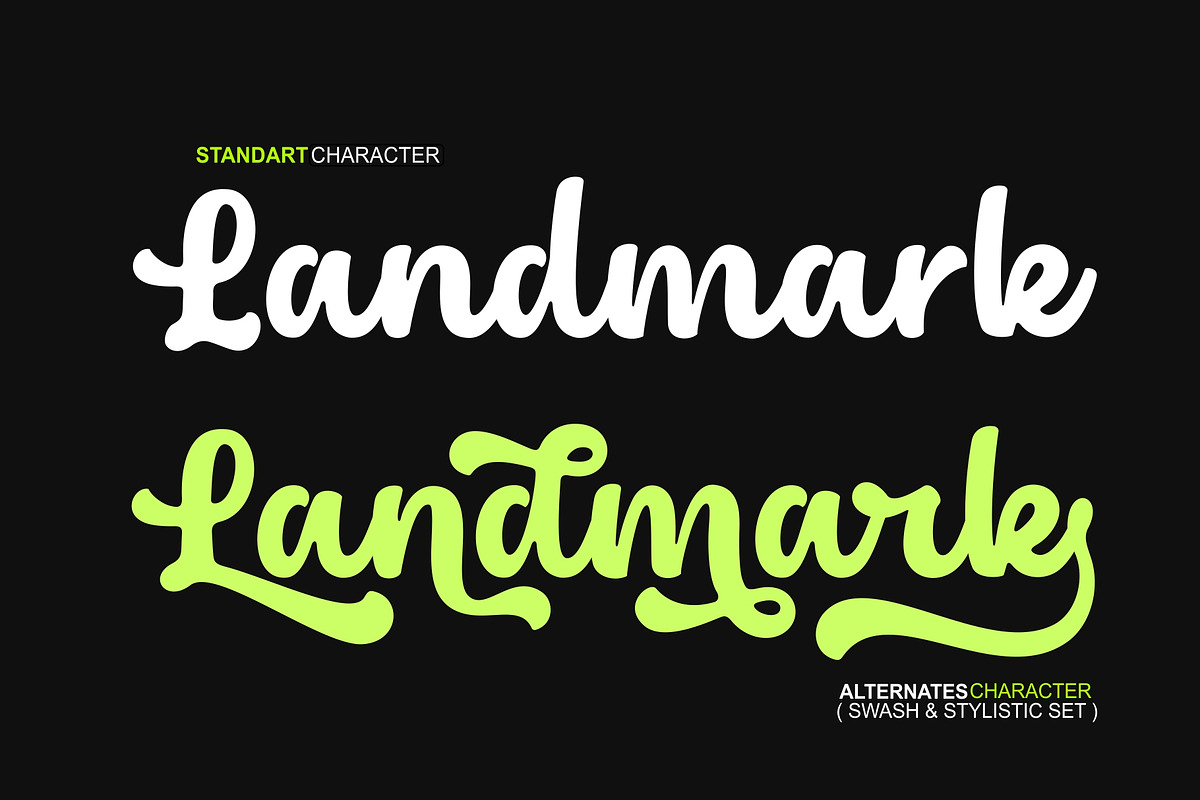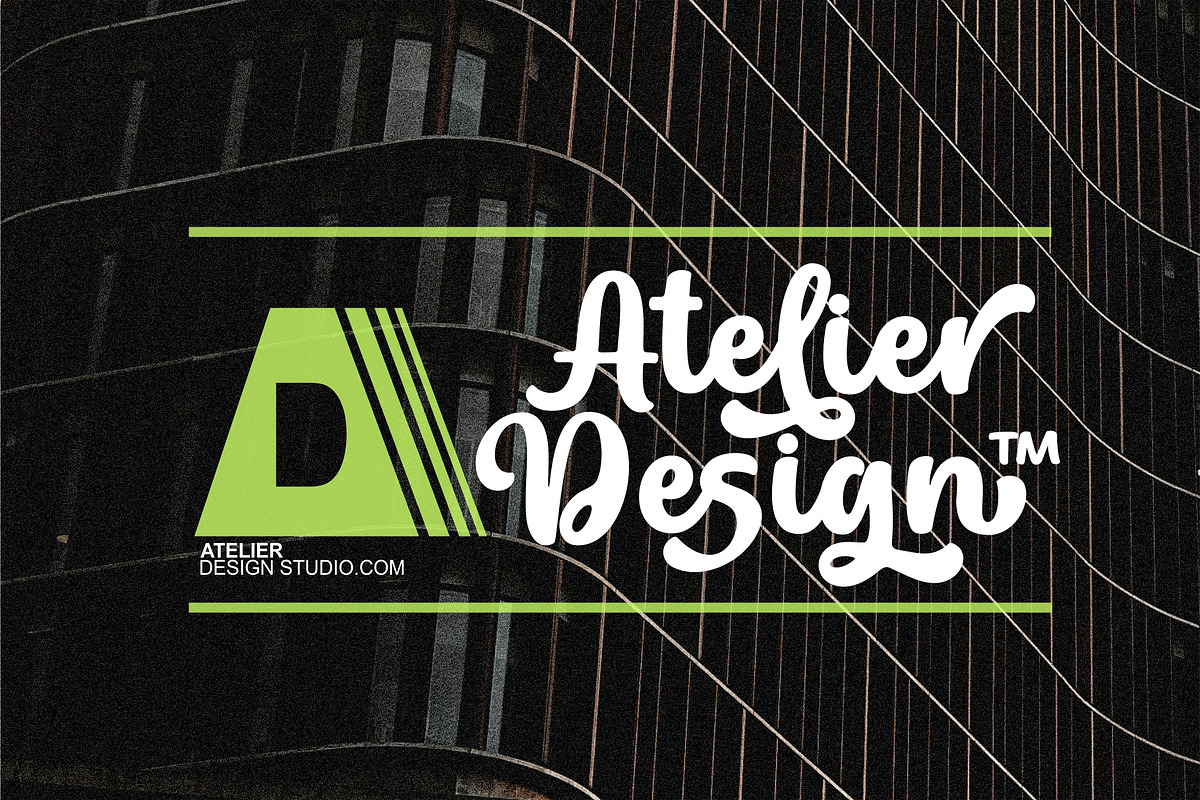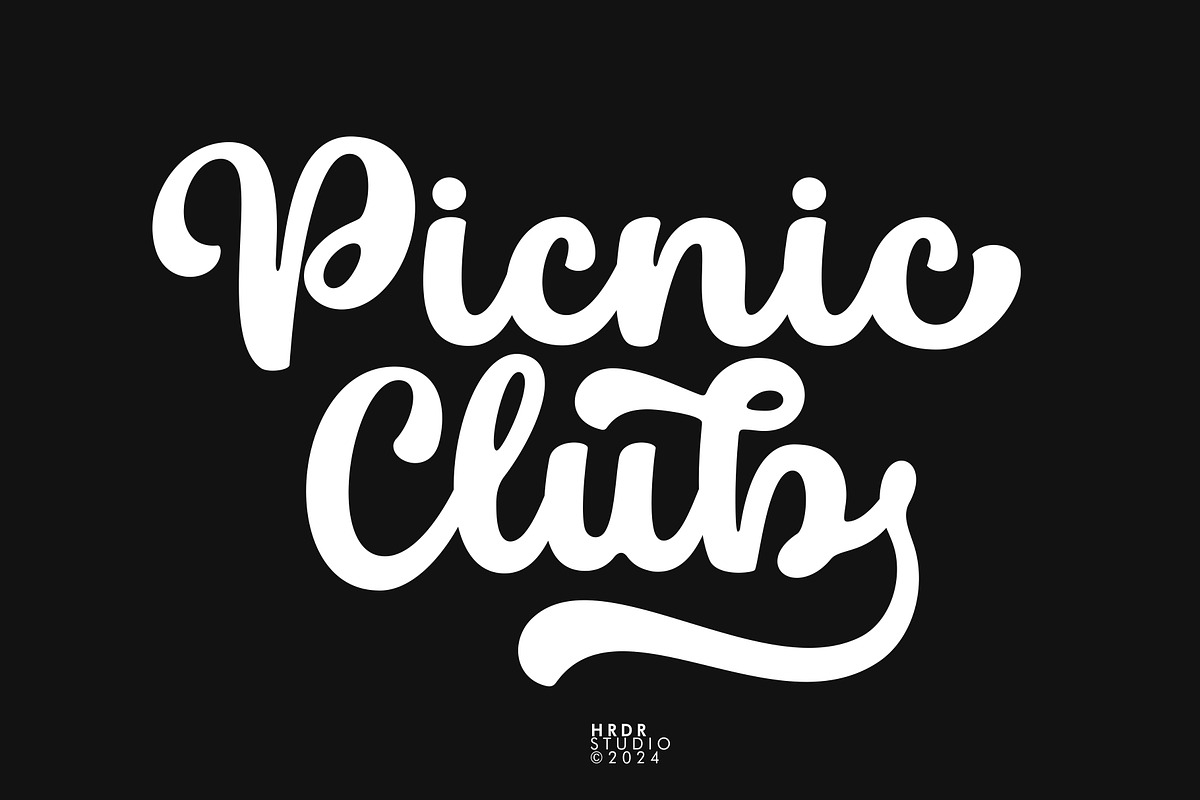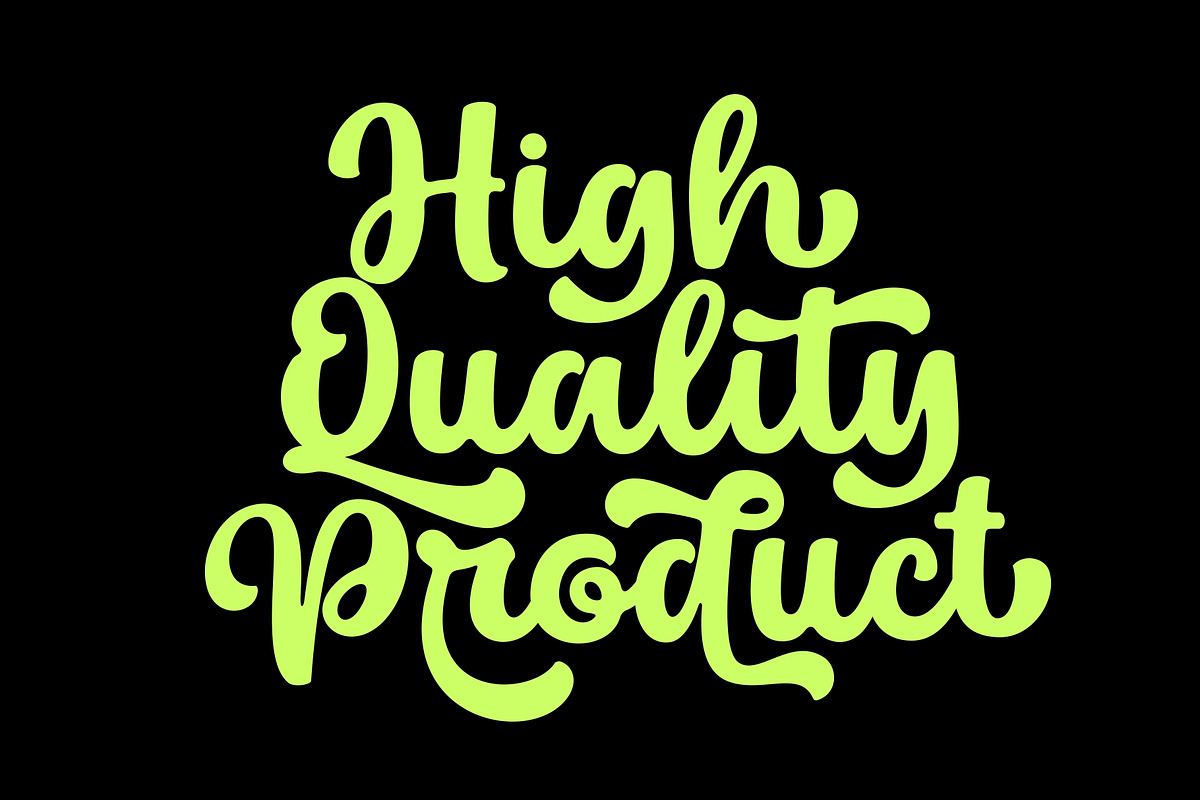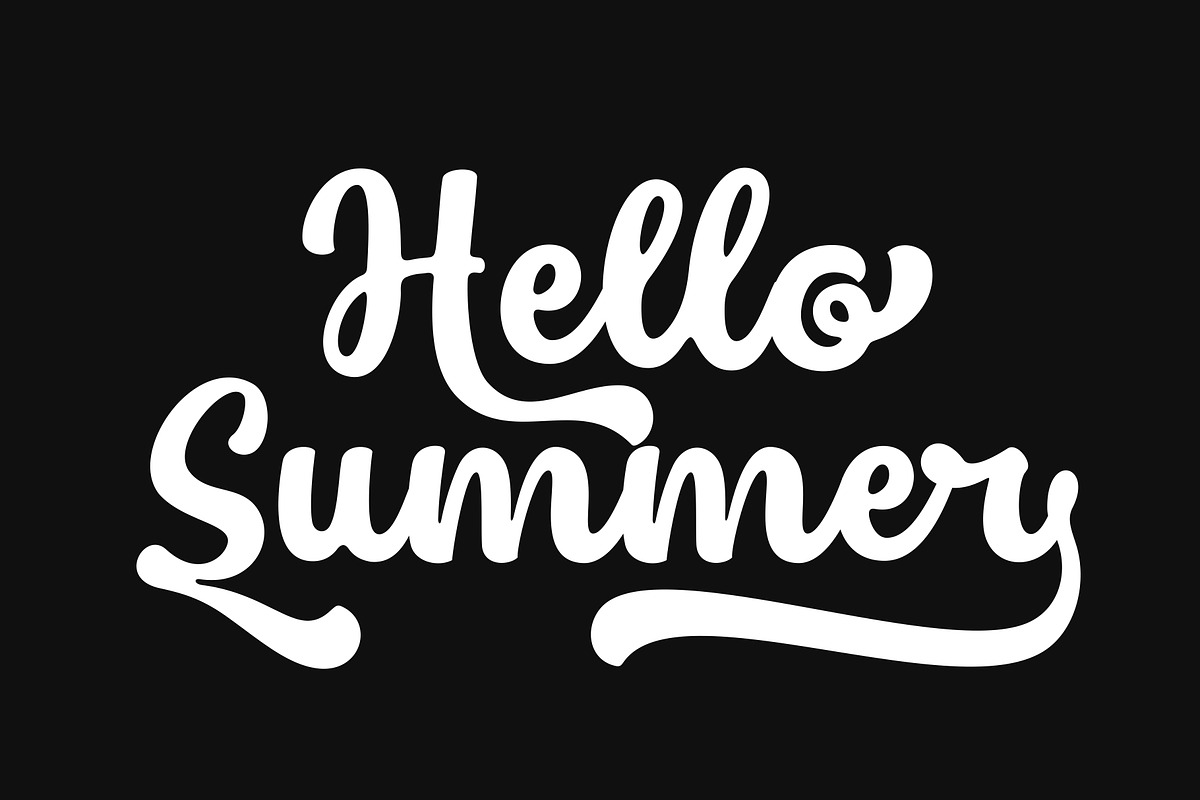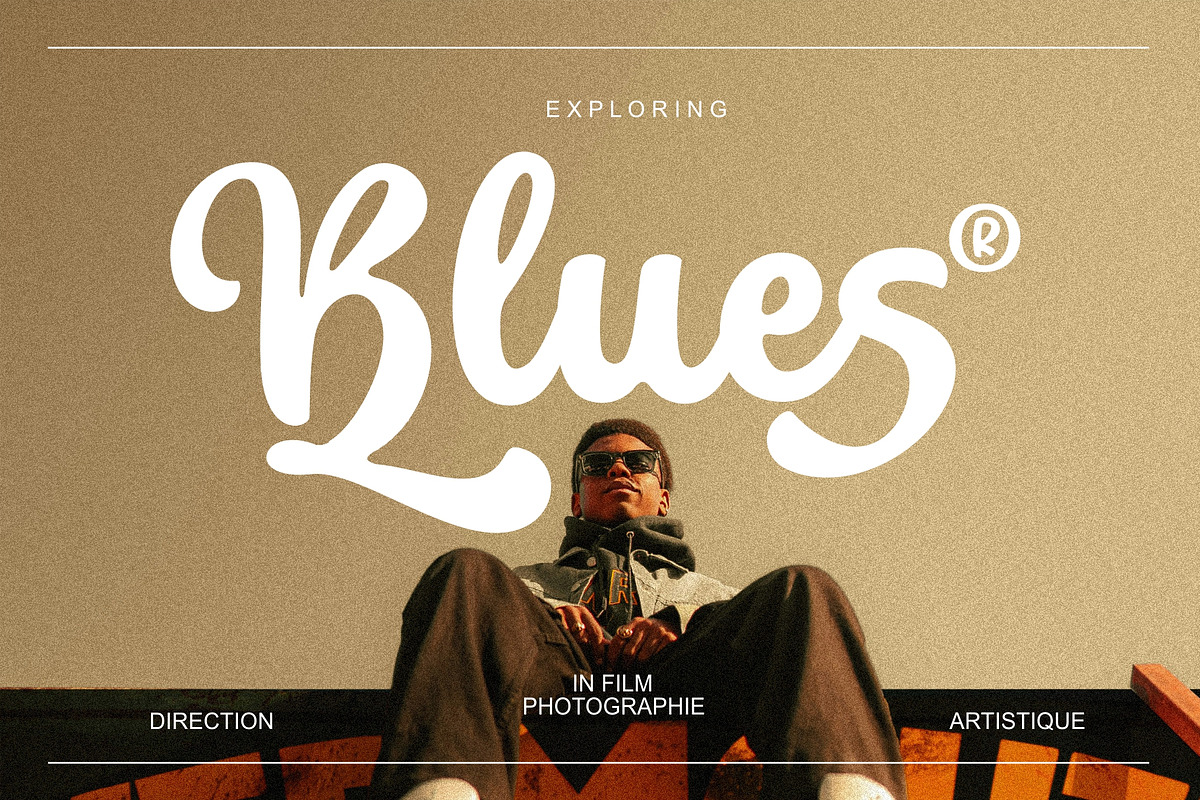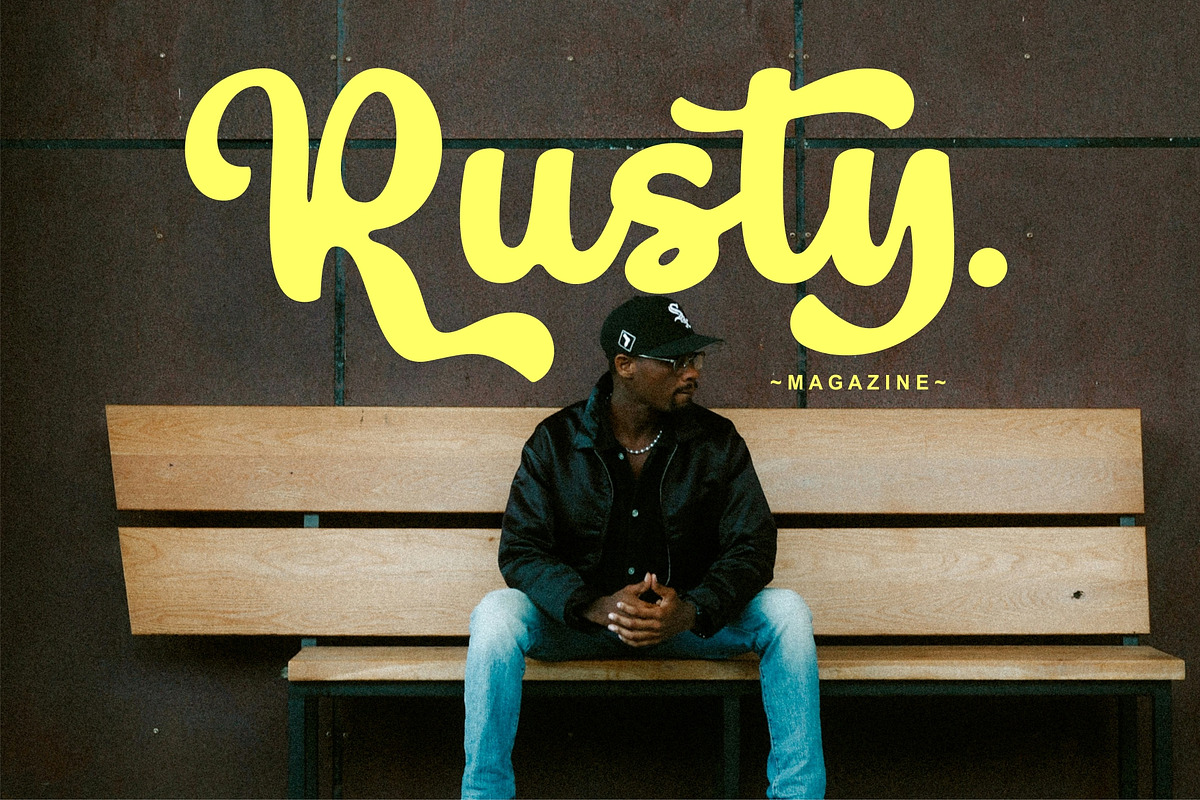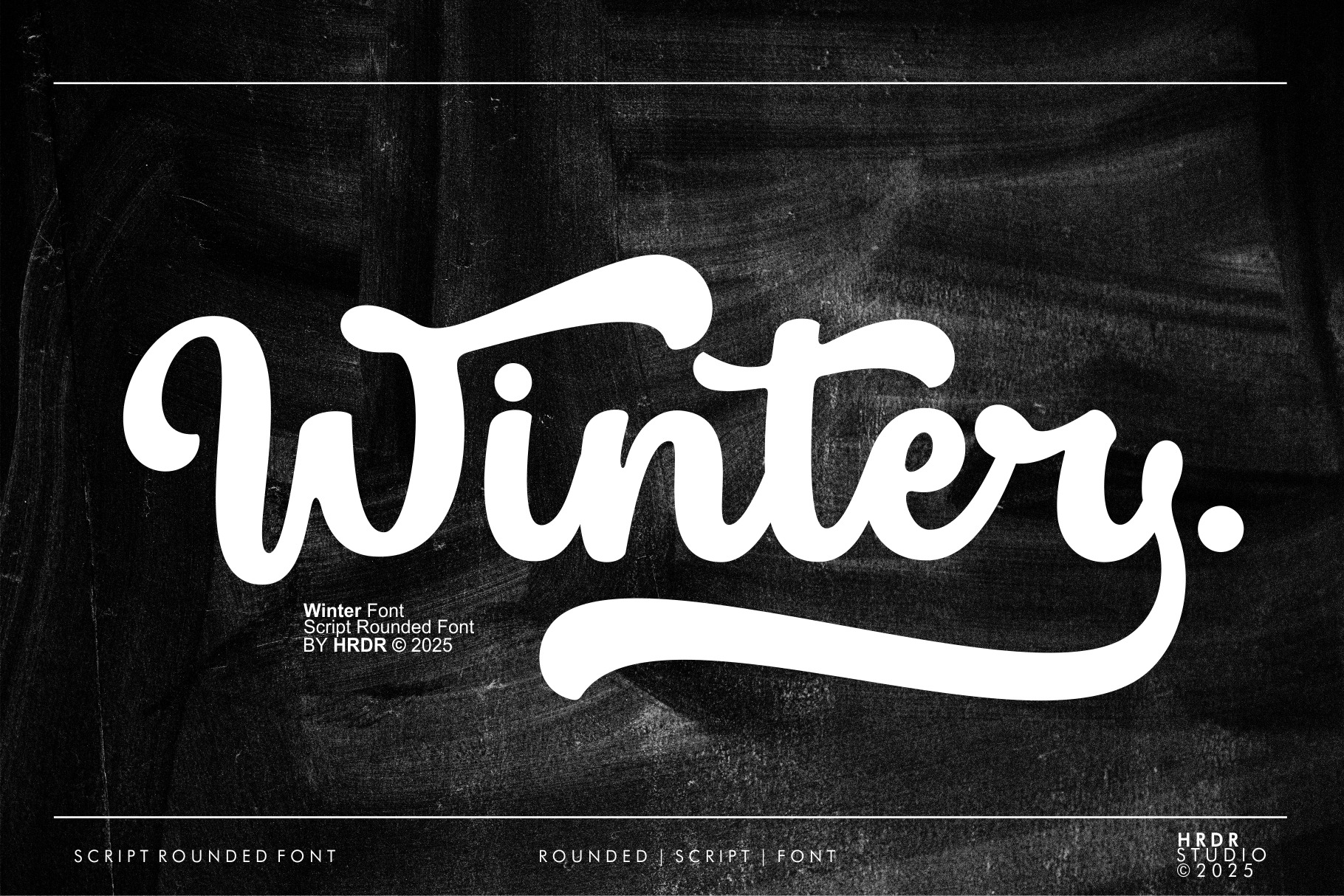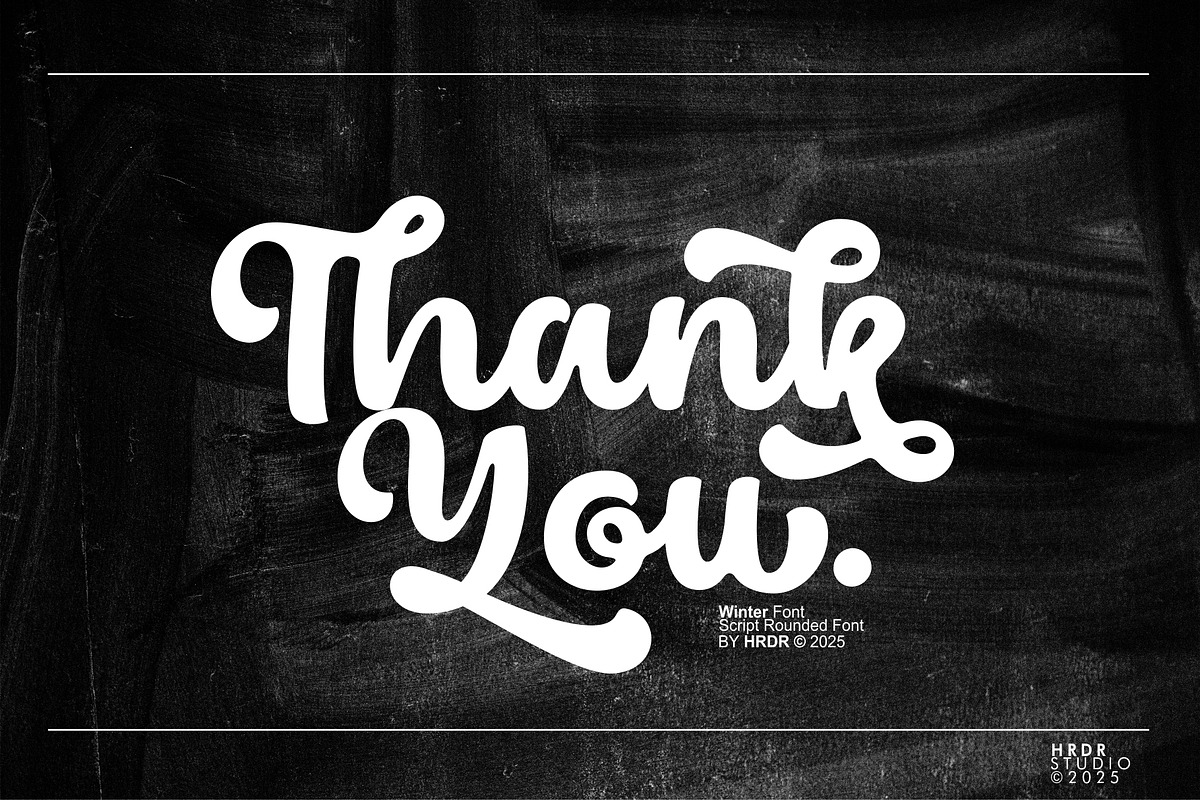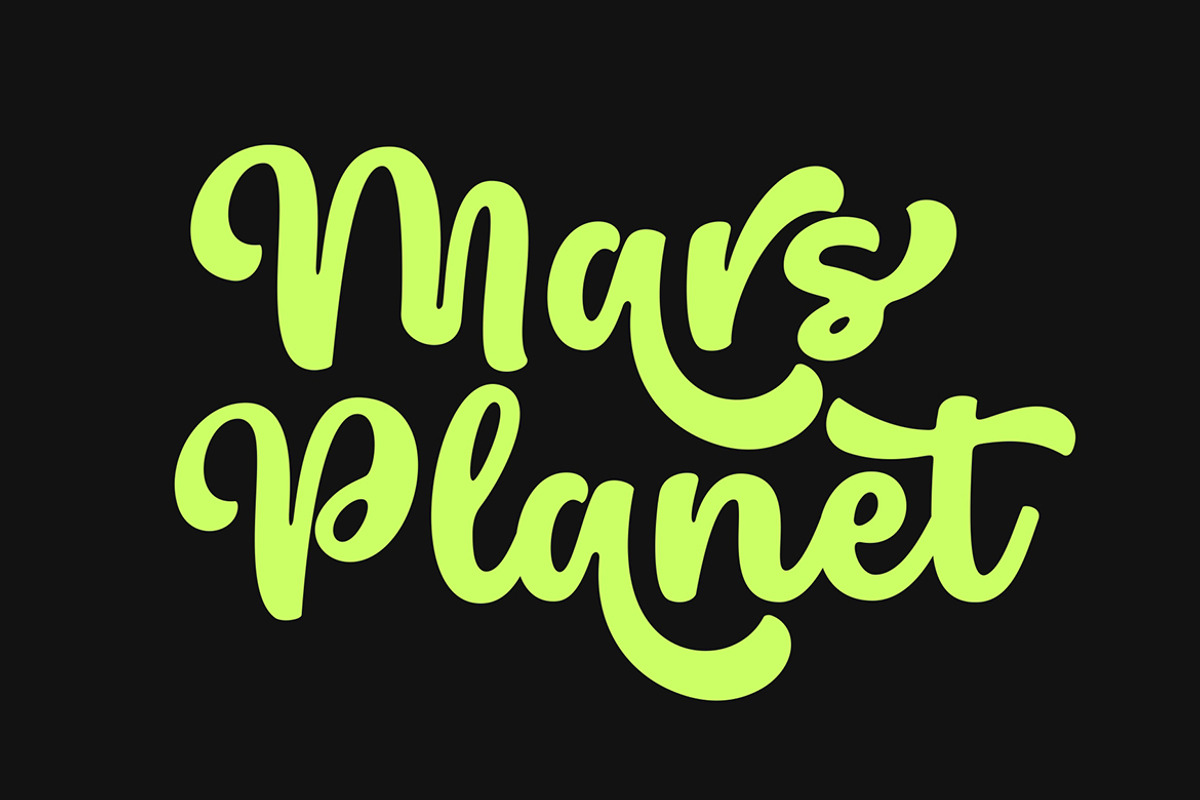
Winter - Rounded Script Font
Meets Winter, This bold and curvy script font evokes a sense of retro and elegant charm. Perfect for eye-catching headlines, artistic logos, creative branding, and playful posters, its handwritten style adds a personal and expressive touch to any design project. Ideal for designers looking to create a fun and unique impression.
- numeric & Multilingual support
- Stylistic Alternates with Ss01, Ss02, Ss03, Ss04, Ss05 and Swash